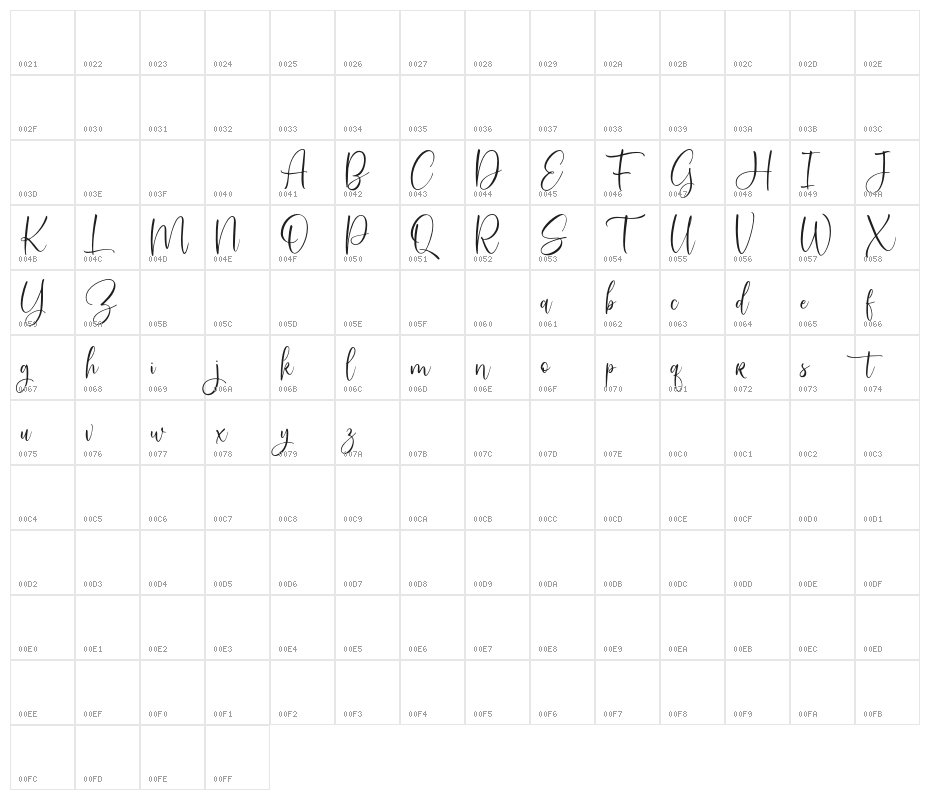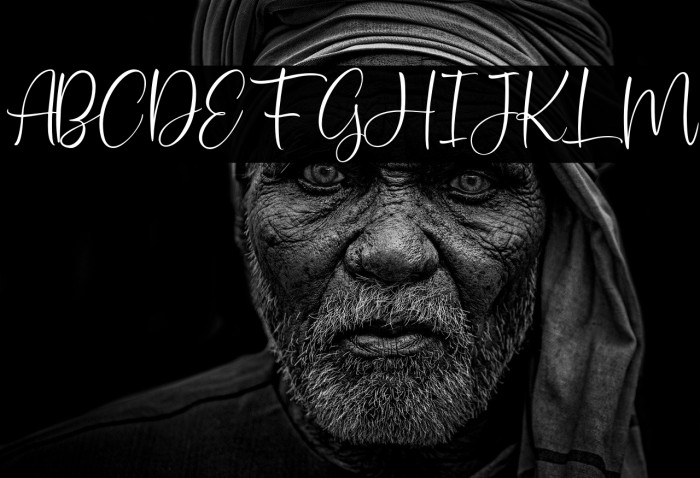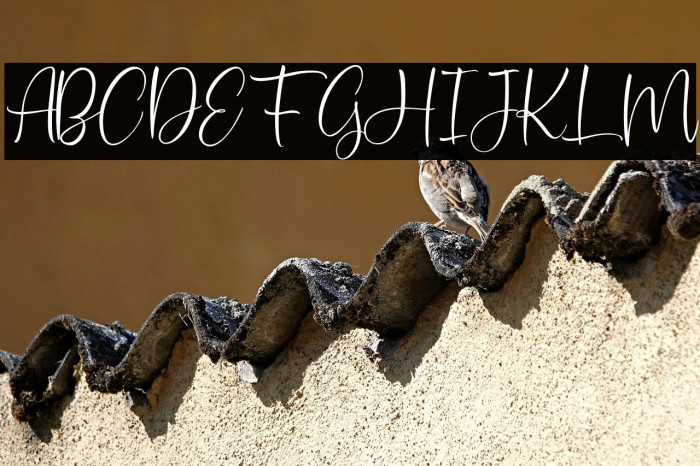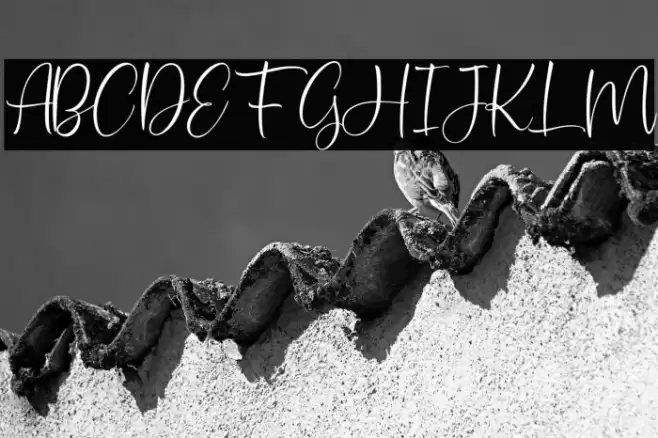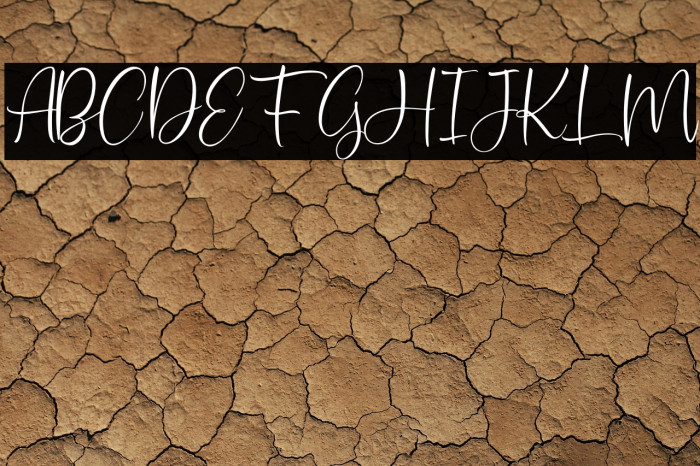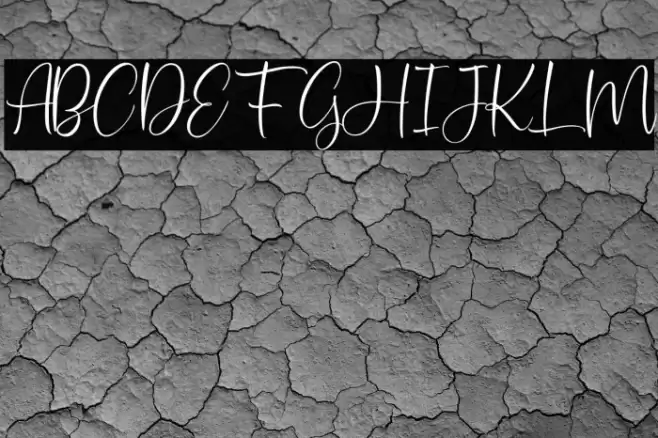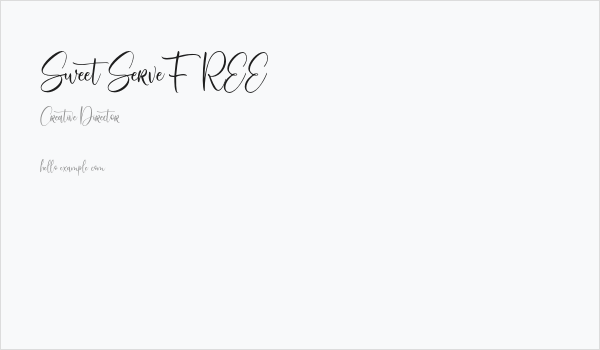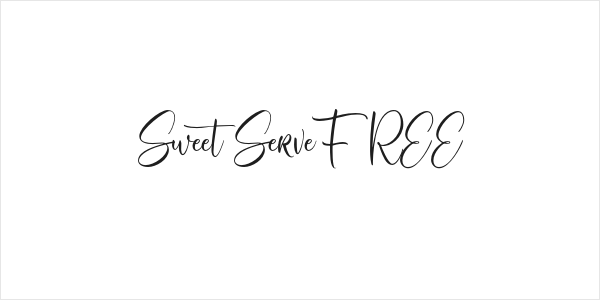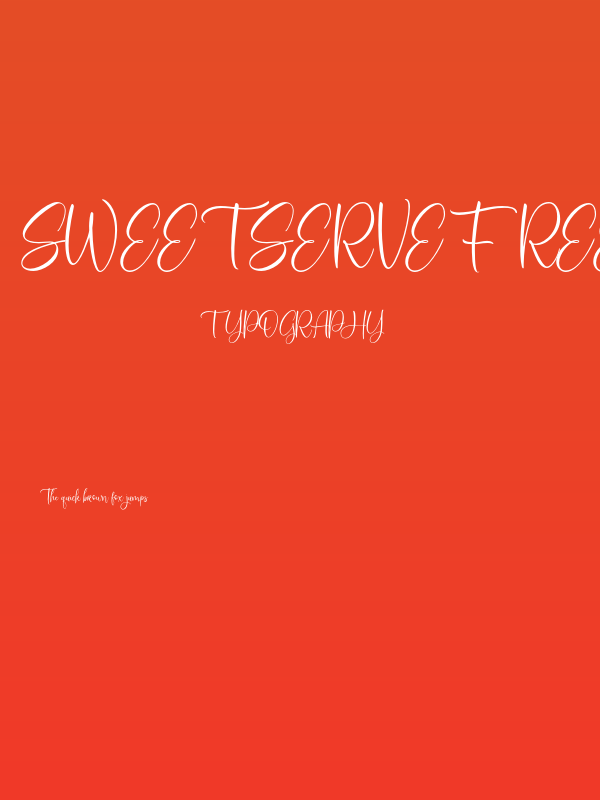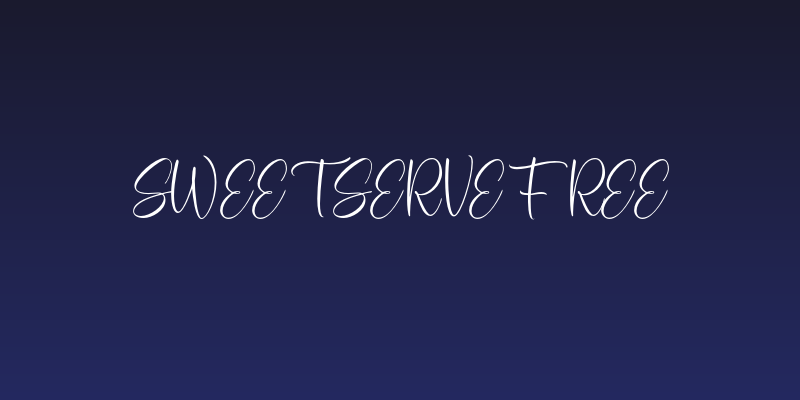
SweetServeFREE Font
SweetServeFREE Description
This elegant script font features a flowing, cursive style with intricate loops and swashes that give it a sophisticated and artistic appearance. The uppercase letters are tall and graceful, while the lowercase letters are more compact with beautiful, sweeping tails. The font maintains a consistent stroke width throughout, providing a harmonious and balanced look. Its decorative nature makes it ideal for adding a touch of elegance and charm to any design project.
| Proposed Projects | Ideal for wedding invitations, greeting cards, branding, and elegant packaging designs. |